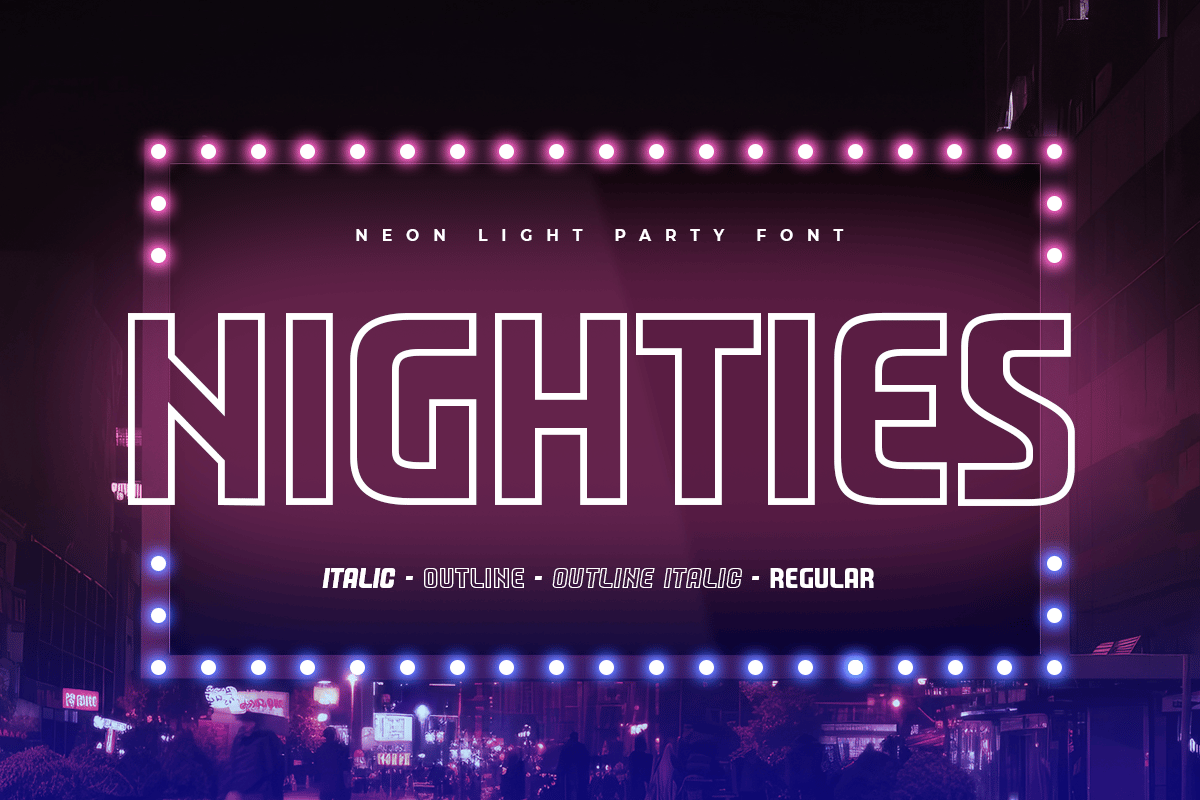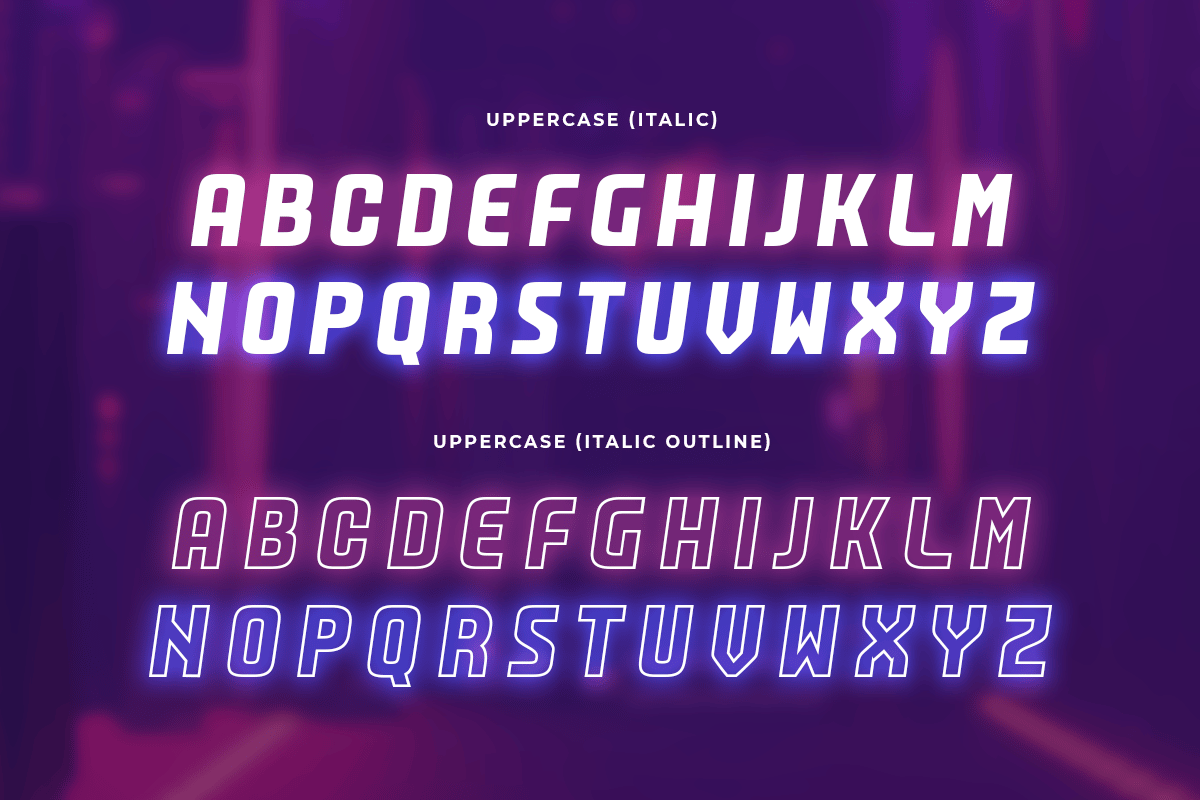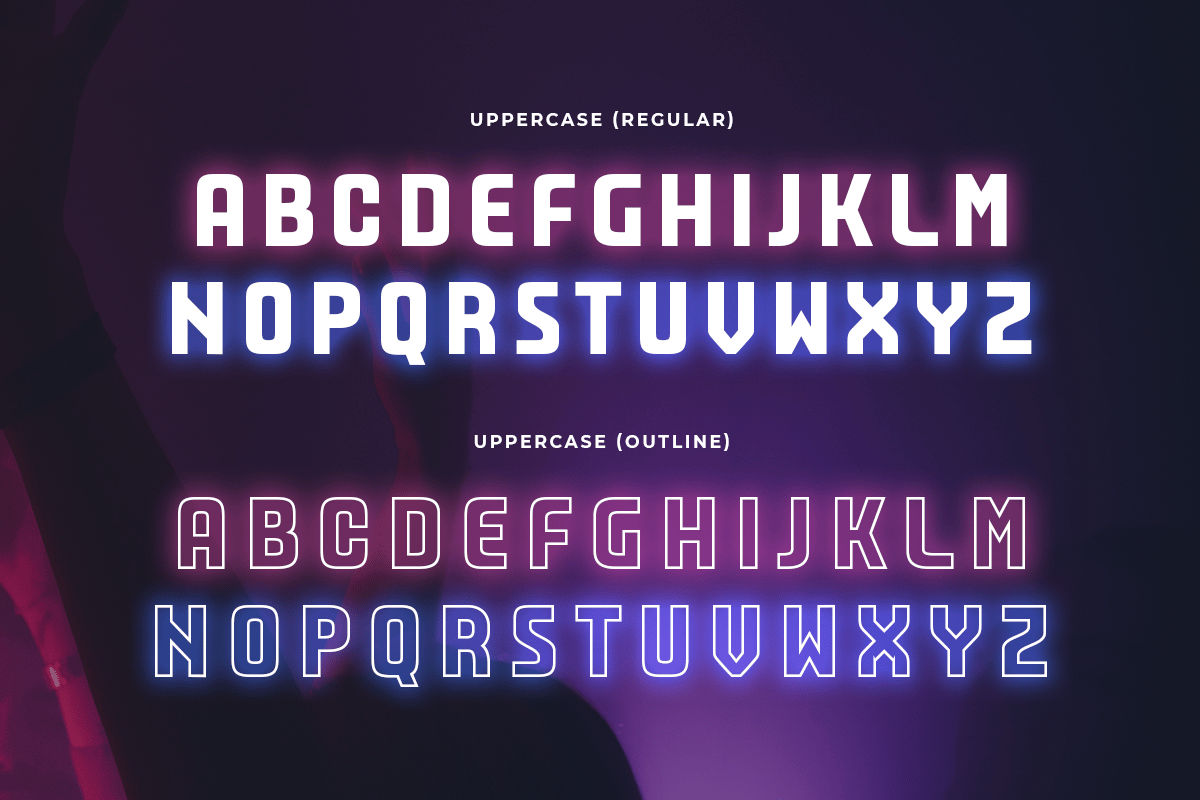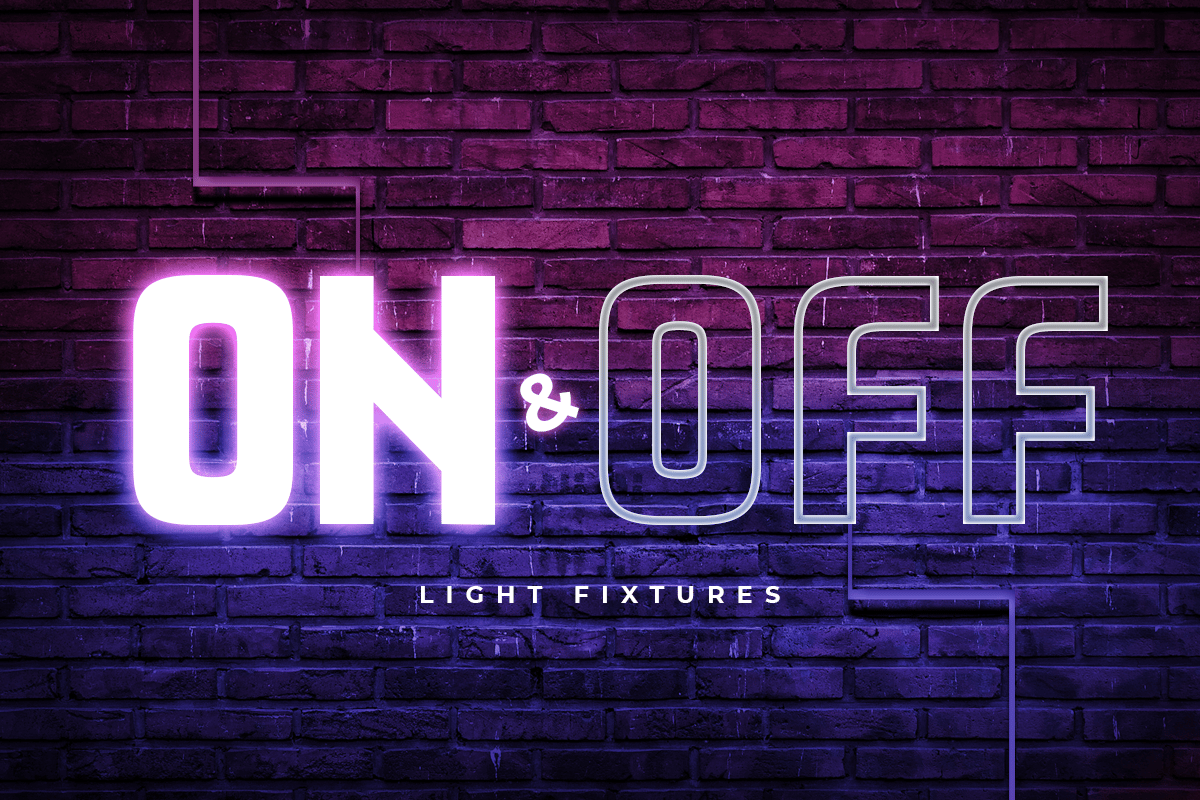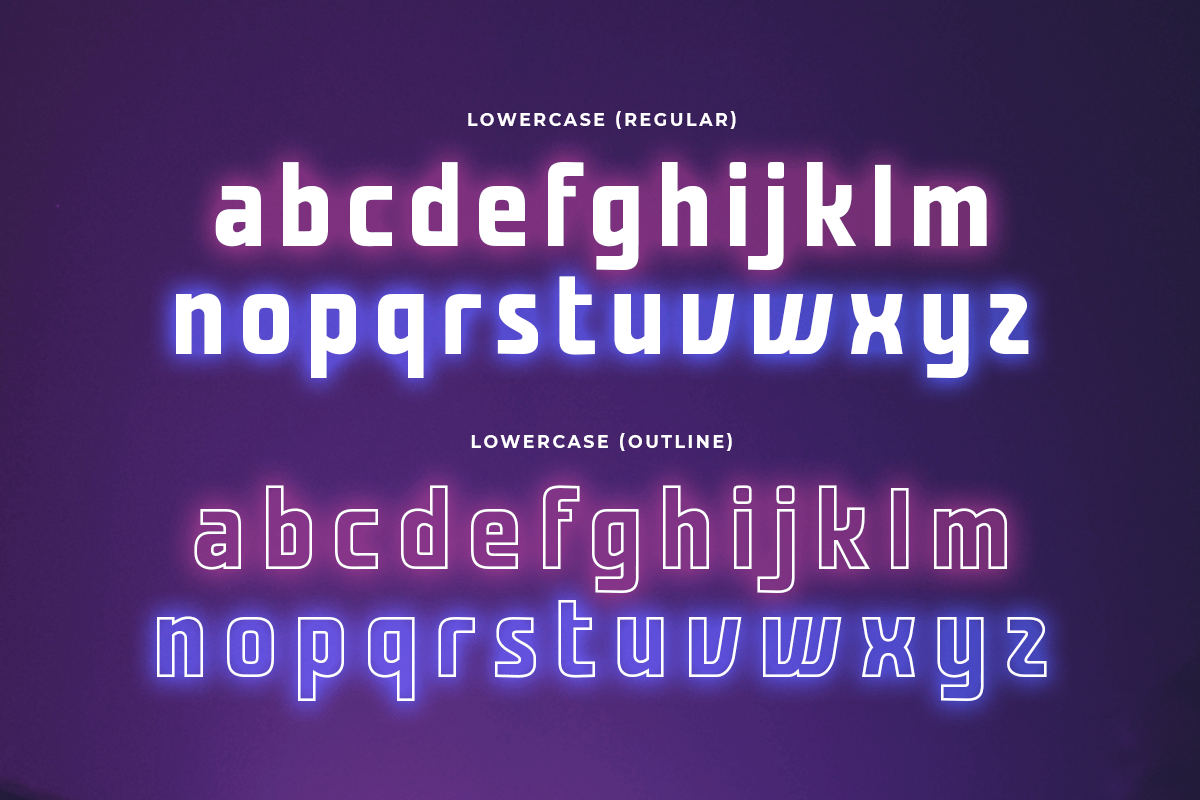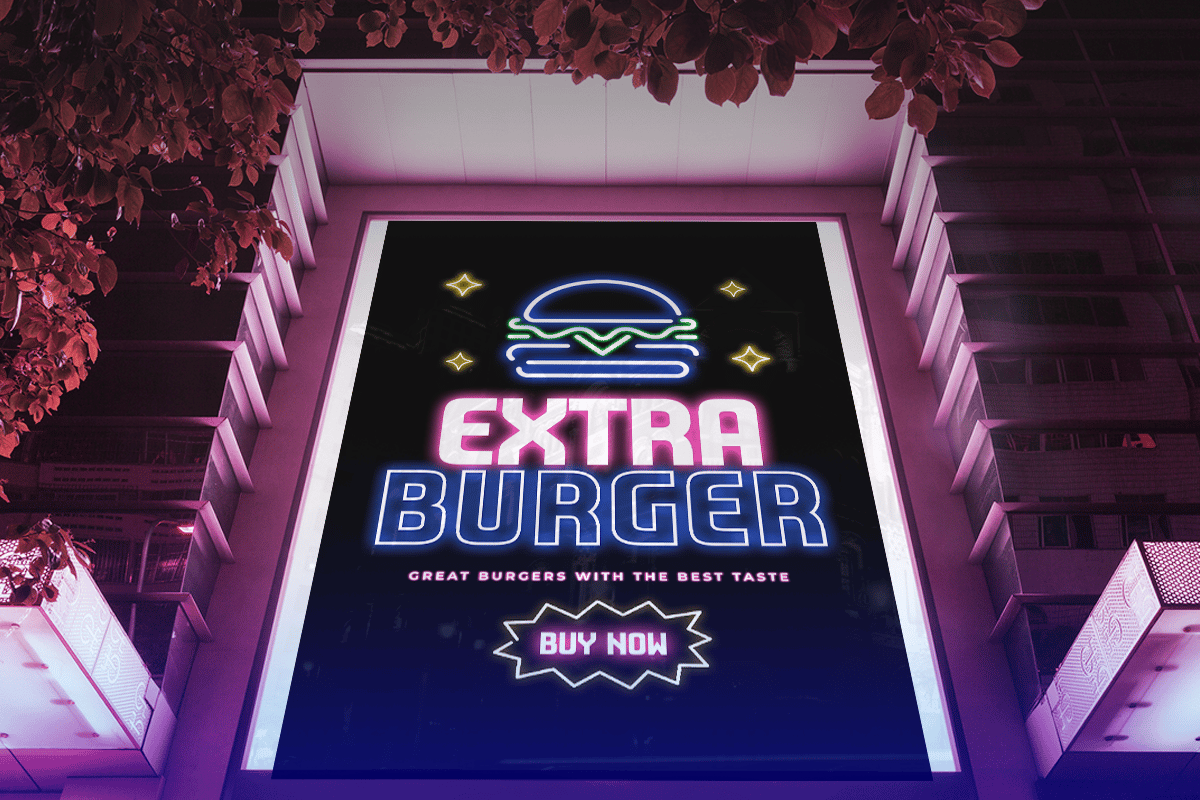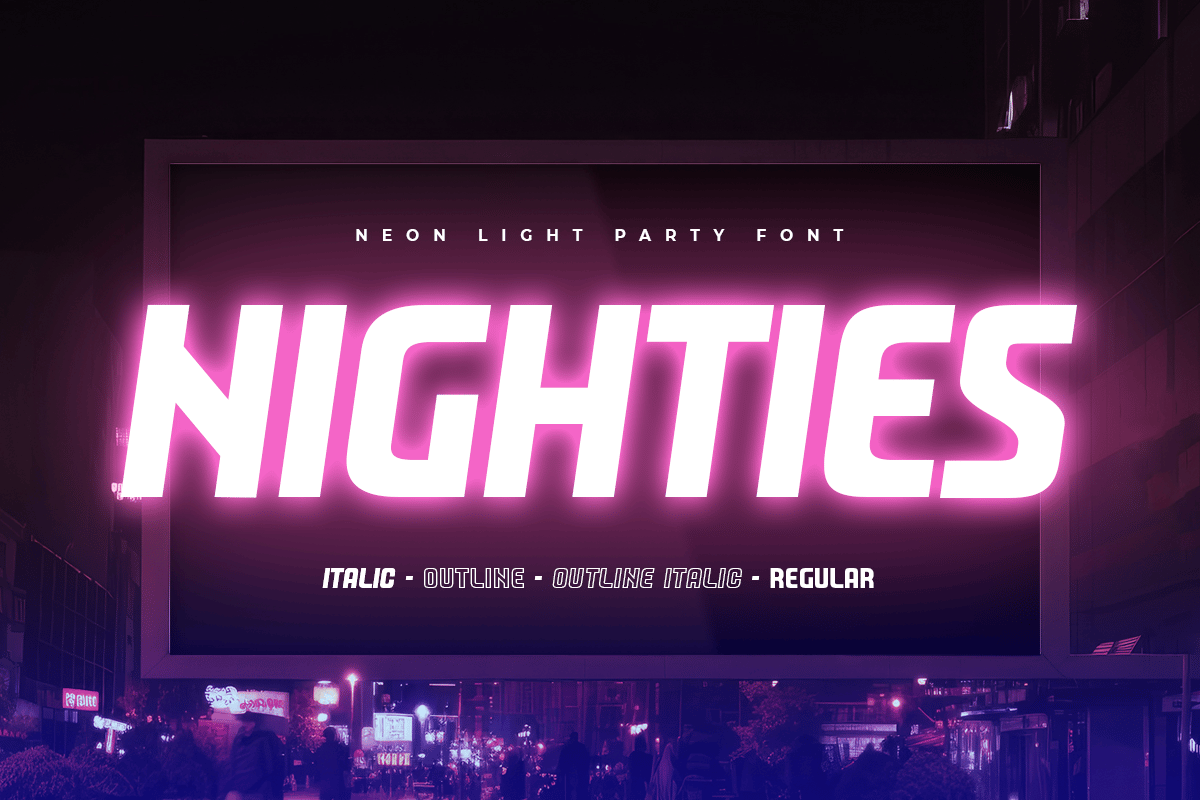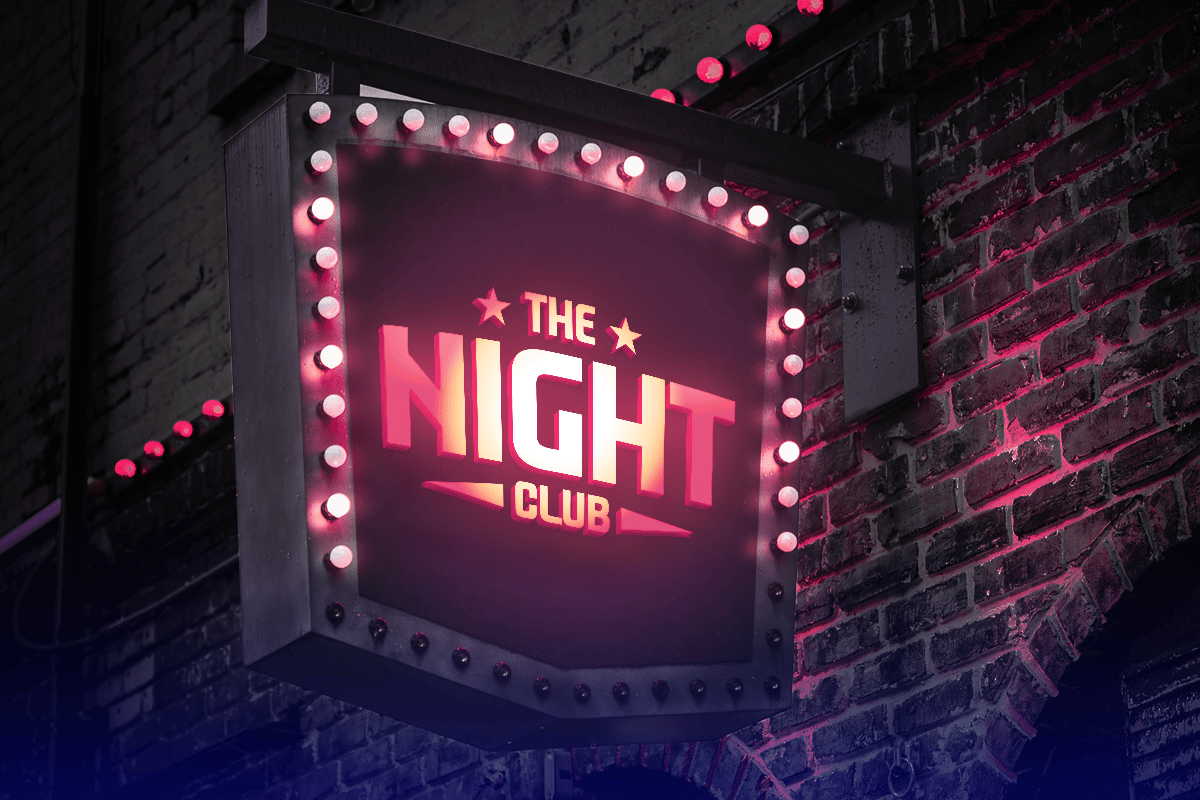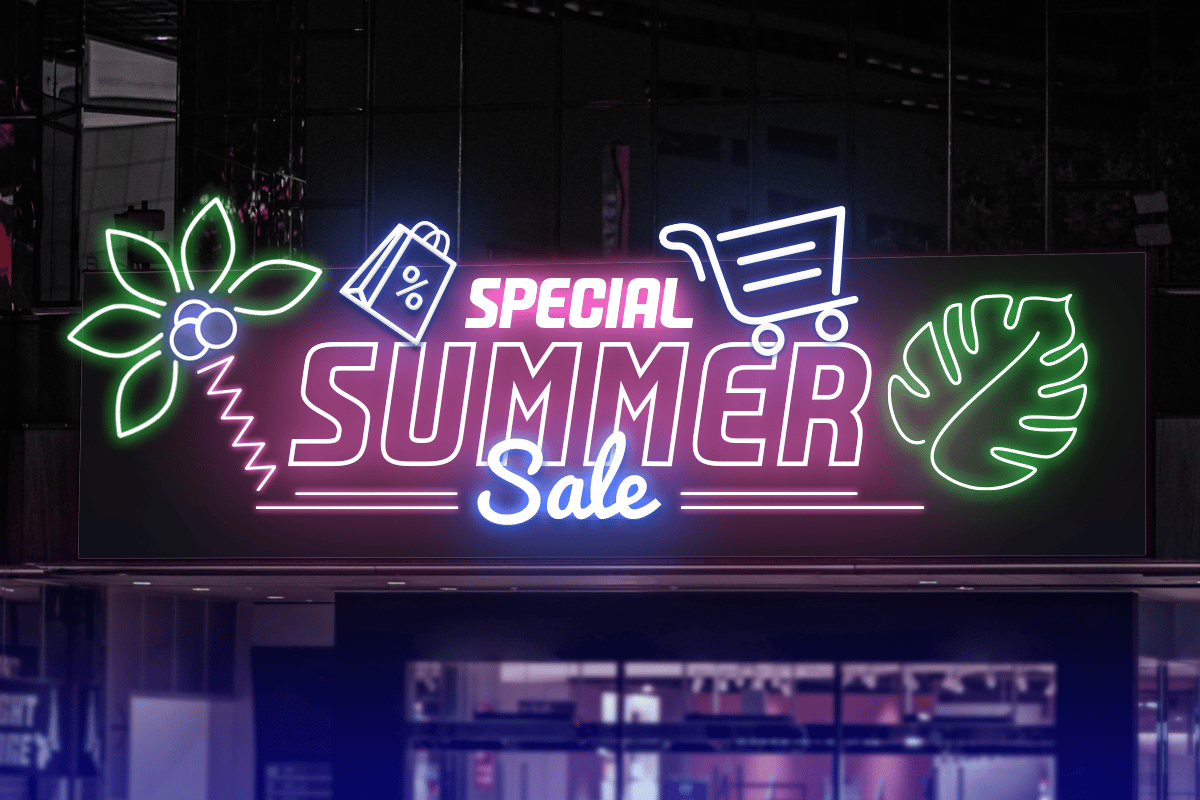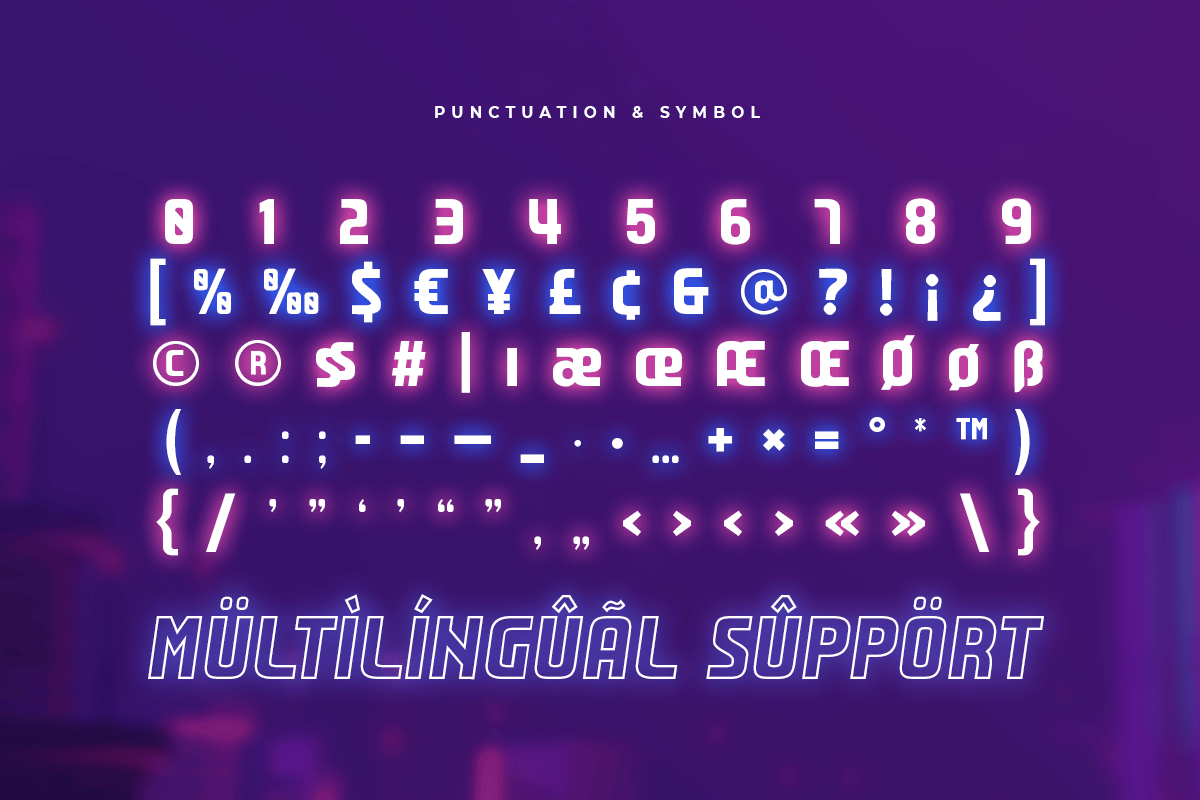
NIGHTIES – Neon Light Party Font
NIGHTIES Neon Light Font, unique shape that perfect for party and any events, make your design look Unique. A new Display Font that we created special for Headline, Title and more stand out typography needs. It’s so perfect to add your style and headline overview. And specially for this font, we crafted for unique style and modern feels so enjoy to create any project that will show your main idea out.
NIGHTIES Neon Light Party Font ready with:
- 4 Styles options to get creative variations
- Ready with Uppercase & Lowercase characters